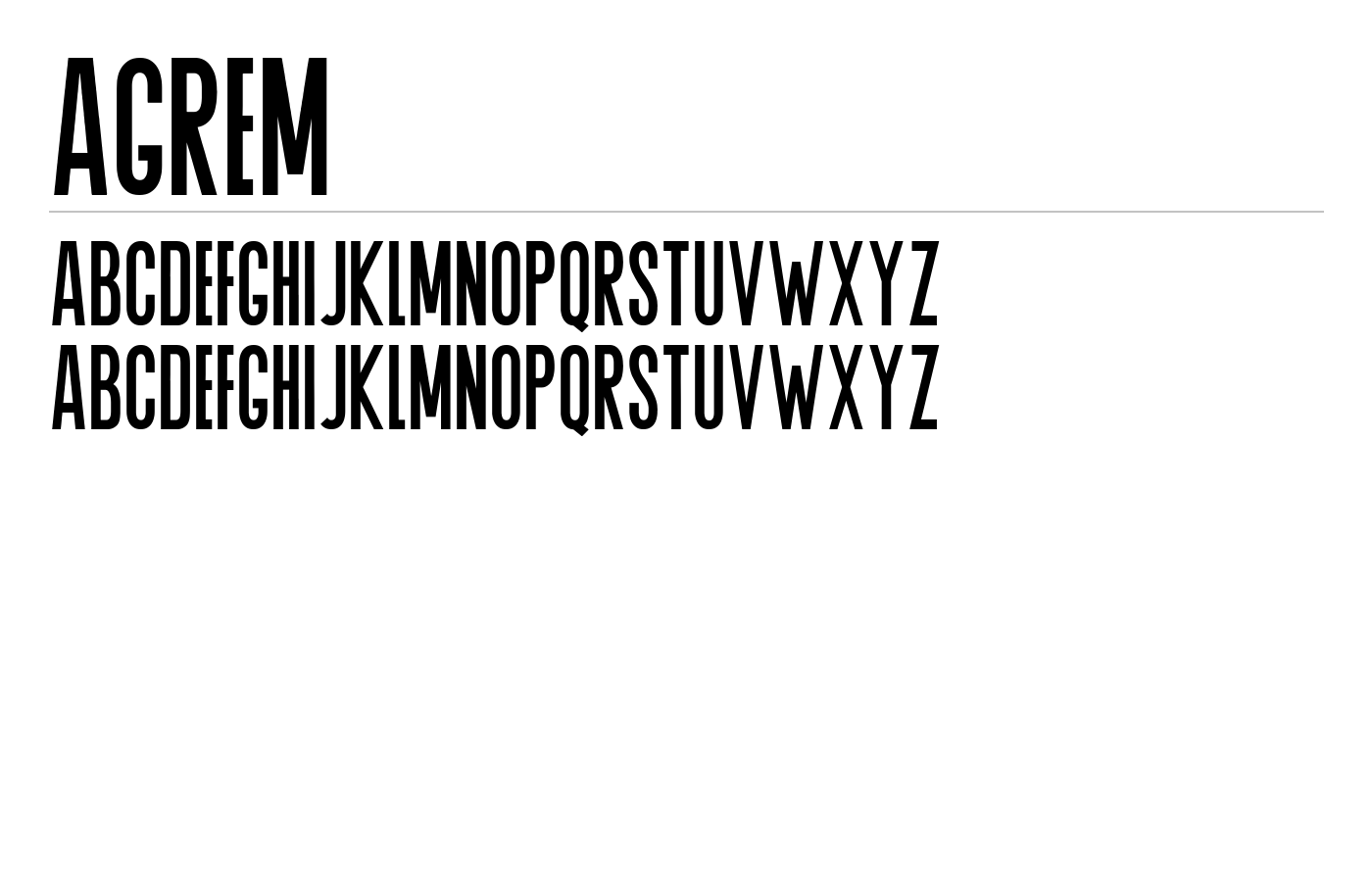
Agrem is a tall, condensed sans serif font with a bold and modern feel, characterized by its uniform stroke weight and clean geometric shapes. Its narrow proportions and high x-height create a striking and impactful presence, making it ideal for headlines, logos, and branding that demand attention and a contemporary edge. This font works well in editorial and advertising contexts where a strong, confident statement is needed.
Agrem Font
About Agrem Font
| Font family | Agrem Font |